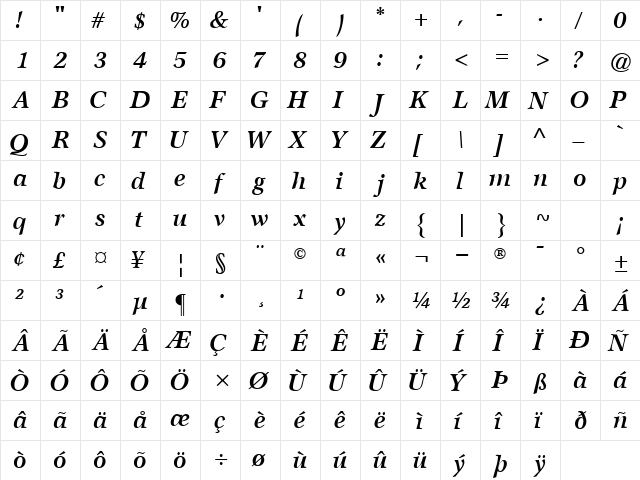
AxiomaticSSK BoldItalic Font Preview
AxiomaticSSK BoldItalic
Design Context for AxiomaticSSK Typeface
AxiomaticSSK is a composed and adaptable typeface that performs quietly and consistently across a wide range of design contexts. The slanted form adds forward momentum and visual energy. The heavy weight commands attention and anchors typographic hierarchies.